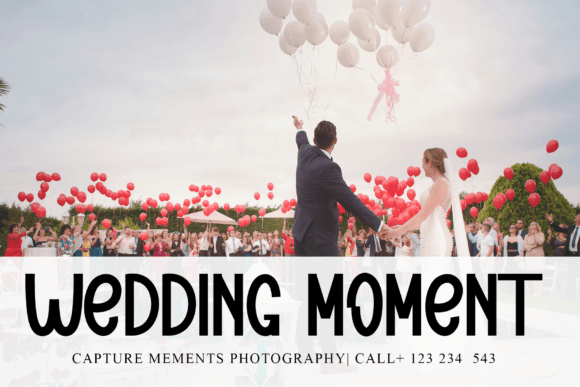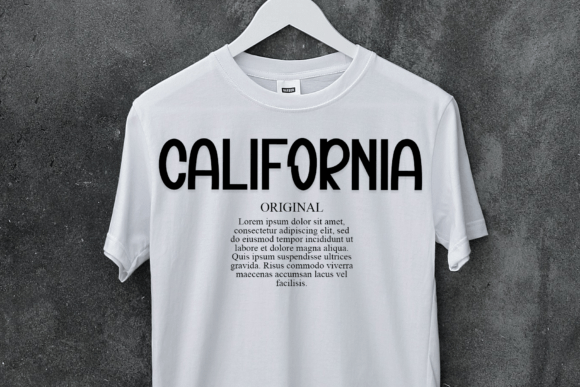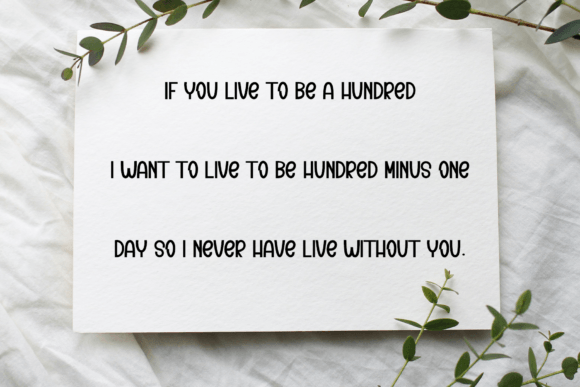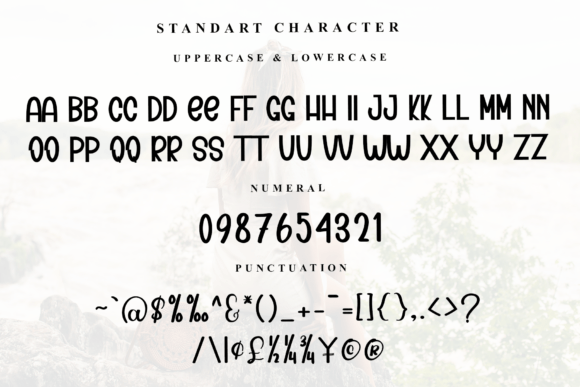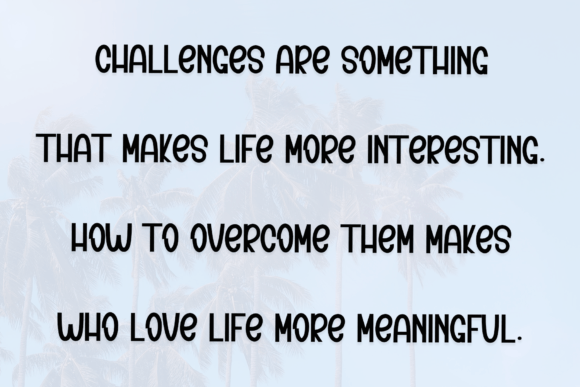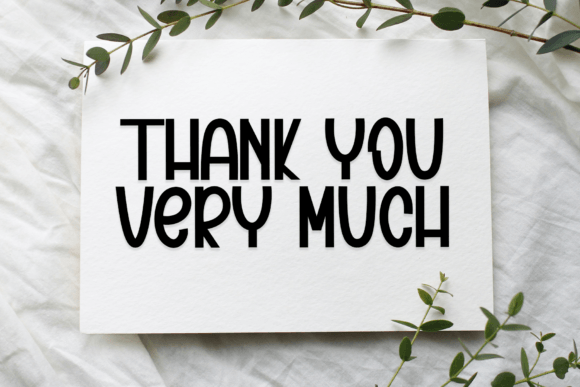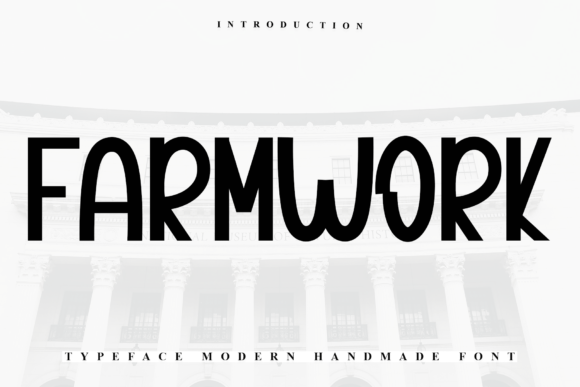
Introducing Farmwork Font: The Perfect Holiday Companion for Designers and Crafters
The holiday season is upon us, and what better way to get into the spirit than with a festive and happy typeface that captures the essence of this joyous time of year? Look no further than Farmwork Font, a delightful and charming font that’s perfect for adding a touch of nostalgia and cheer to your designs. In this article, we’ll dive into the world of Farmwork Font, exploring its unique features, uses, and benefits for designers and crafters alike.
A Festive and Happy Typeface
Farmwork Font is a beautifully crafted typeface that’s specifically designed to evoke the spirit of the holiday season. Its decorative elements and unique flair make it an instant standout, adding a touch of charm to any design. Whether you’re creating greeting cards, gift labels, or holiday-themed projects, Farmwork Font is the perfect companion to bring a cheerful and nostalgic atmosphere to your words.
With Farmwork Font, you can add a personal touch to your designs that will leave a lasting impression on your audience. Its festive and happy vibe makes it ideal for a wide range of applications, from Christmas cards and holiday party invitations to seasonal gift tags and decorations.
Key Features of Farmwork Font
So, what makes Farmwork Font so special? Here are just a few of its key features:
- Decorative elements: Farmwork Font boasts a range of decorative elements that add a touch of whimsy and charm to your designs.
- Unique flair: This font’s unique flair sets it apart from other typefaces, making it perfect for adding a personal touch to your designs.
- PUA coded: Farmwork Font is PUA (Private Use Area) coded, which means you can access all the amazing glyphs and ligatures easily.
The Benefits of PUA Coding
So, what does it mean for a font to be PUA coded? In simple terms, PUA coding allows designers to access a font’s special characters, glyphs, and ligatures with ease. This means you can unlock the full potential of Farmwork Font, using its decorative elements and unique flair to create stunning designs that will leave a lasting impression.
With PUA coding, you don’t need to worry about complicated design software or tedious workarounds. Simply access the font’s special characters and get creative! Whether you’re a seasoned designer or a crafter looking to add a personal touch to your projects, PUA coding makes it easy to get the most out of Farmwork Font.
Farmwork Font is a versatile typeface that’s perfect for a wide range of applications, from professional design projects to personal crafting endeavors. Here are just a few ways designers and crafters can use Farmwork Font:
- Greeting cards: Add a personal touch to your holiday greeting cards with Farmwork Font’s festive and happy vibe.
- Gift labels: Make your gifts stand out with beautifully designed labels featuring Farmwork Font.
- Holiday-themed projects: From Christmas decorations to seasonal party invitations, Farmwork Font is the perfect companion for any holiday-themed project.
In conclusion, Farmwork Font is a delightful and charming typeface that’s perfect for adding a touch of nostalgia and cheer to your designs. With its decorative elements, unique flair, and PUA coding, this font is a must-have for designers and crafters looking to create stunning holiday-themed projects. Whether you’re creating greeting cards, gift labels, or holiday decorations, Farmwork Font is the perfect companion to bring a festive and happy vibe to your words.